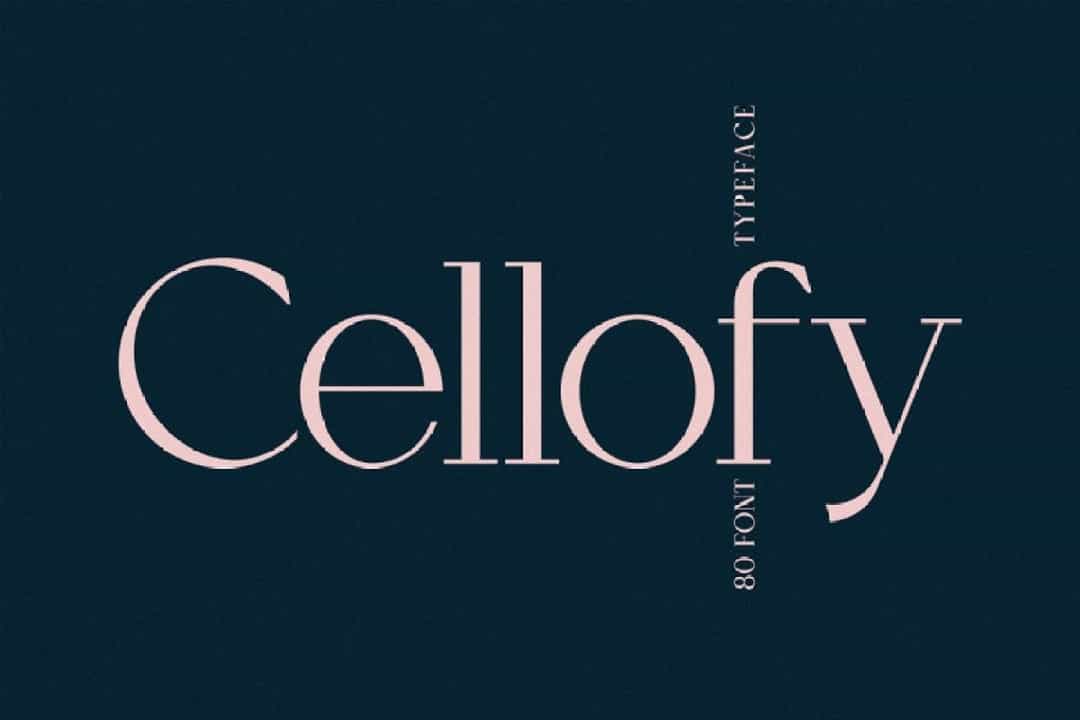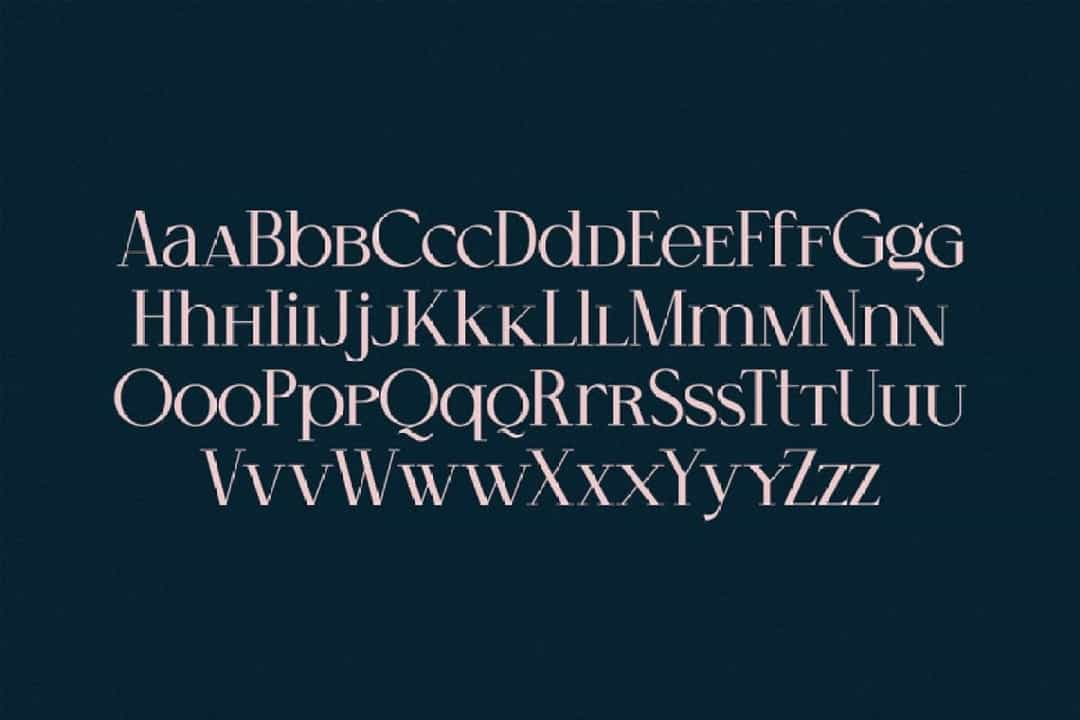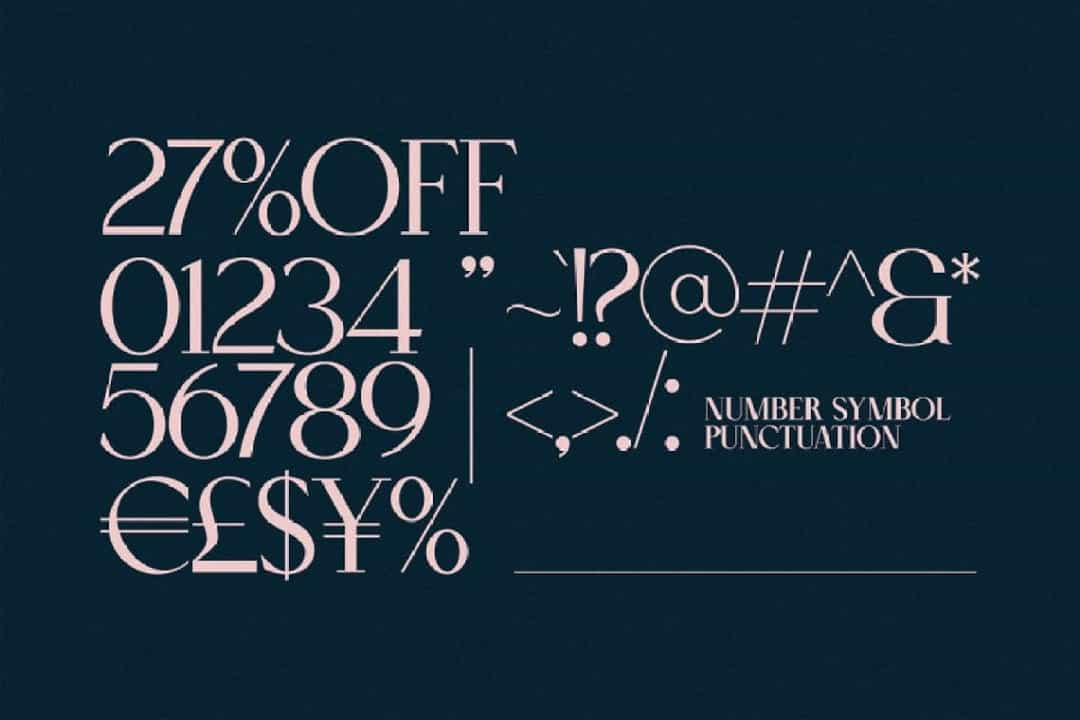
Discover Cellofy Font, part of the Serif collection—a versatile and unique font perfect for adding a personal touch to your projects. Download it for free and enjoy crafting designs with style, from invitations to social media posts. This font is available exclusively for personal use, giving you the freedom to create without limits. Unlock your creativity with Cellofy Font today!
Cellofy font, a serif font type, features different families that range in size from standard to extended for easy designer access to many options within each font family and to let users discover them all.